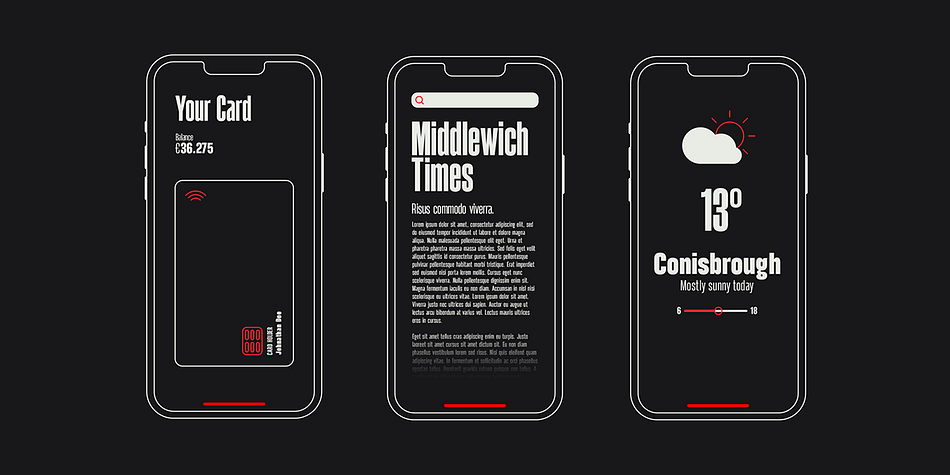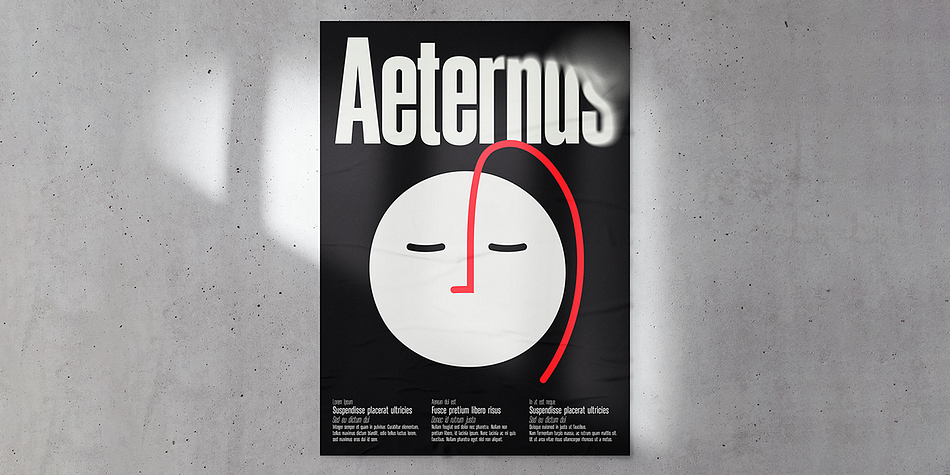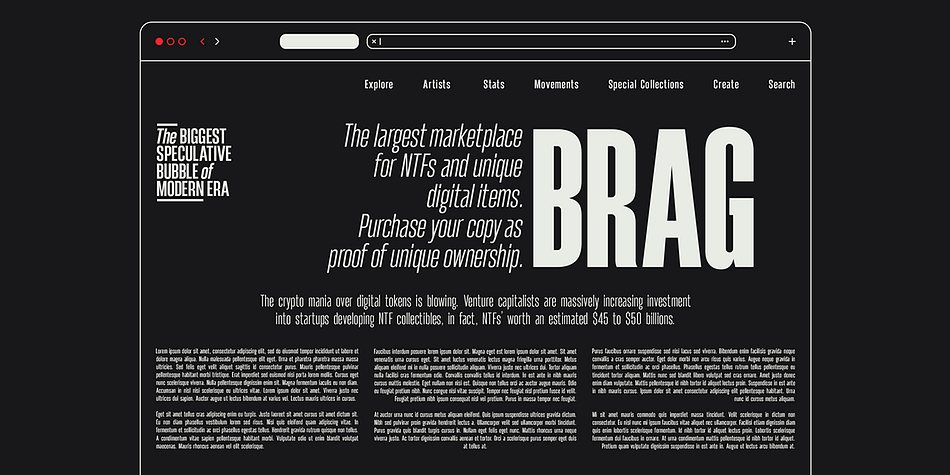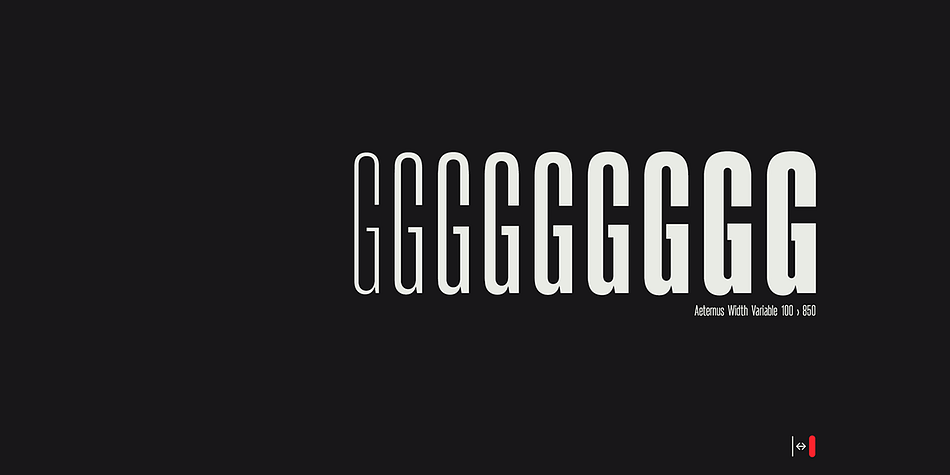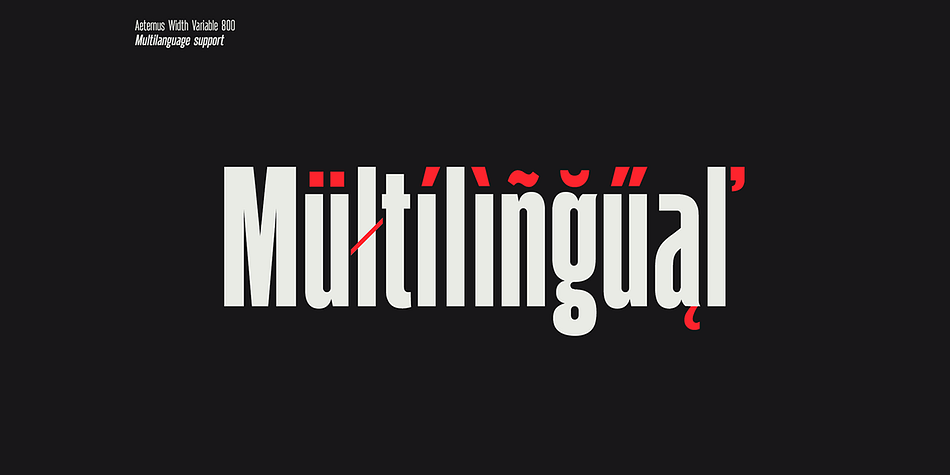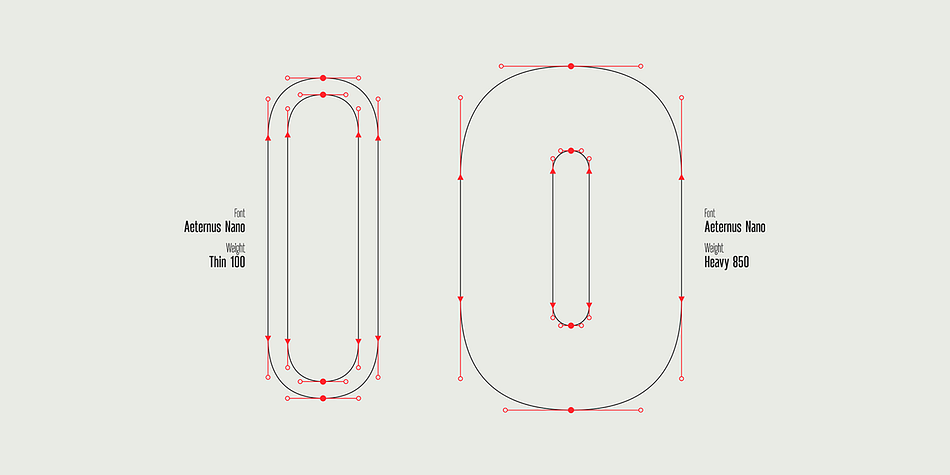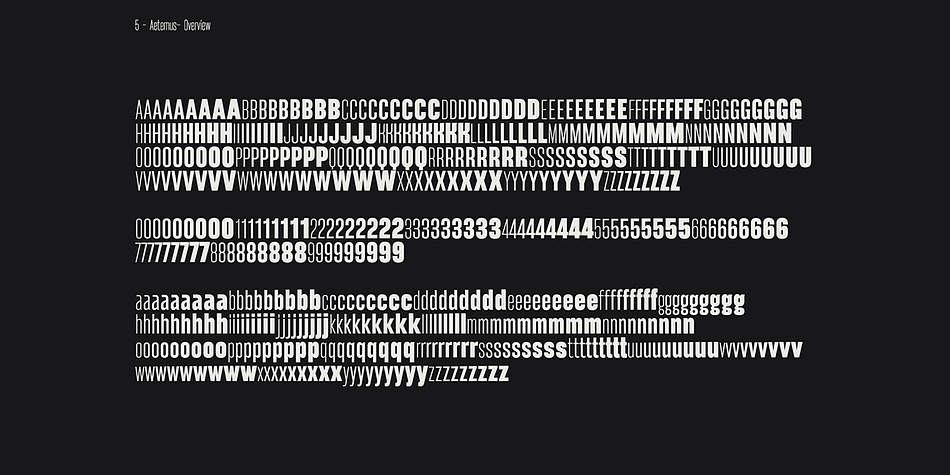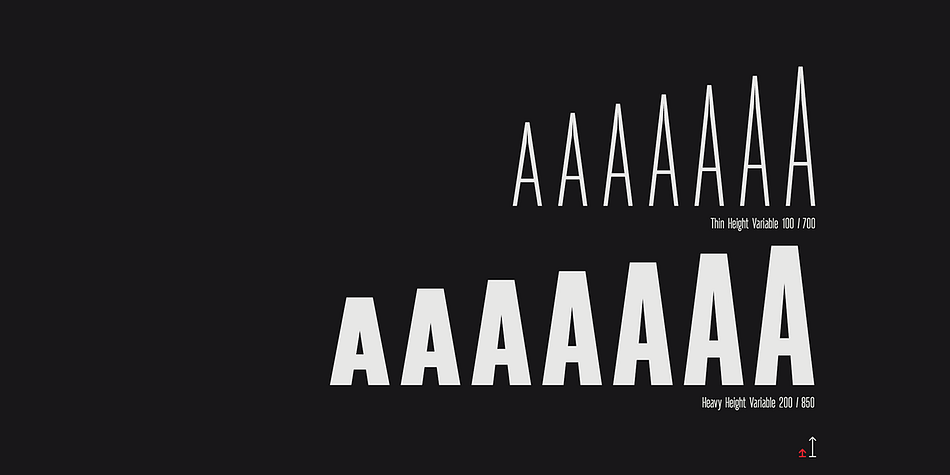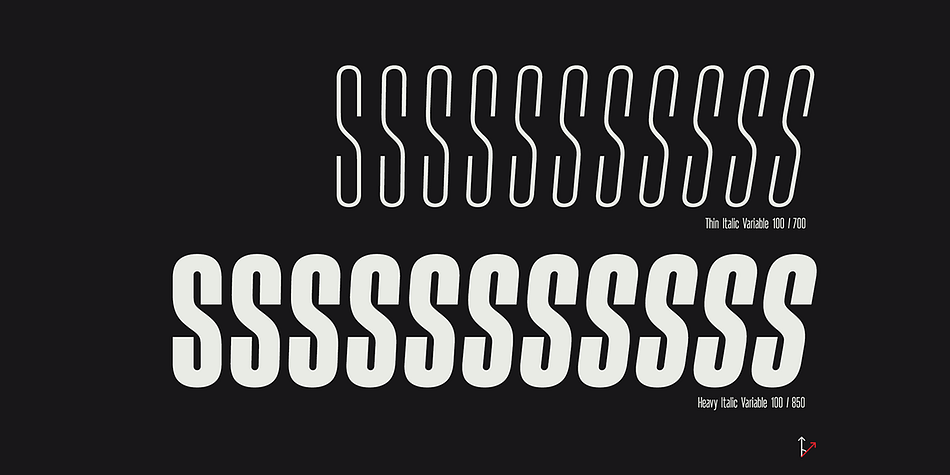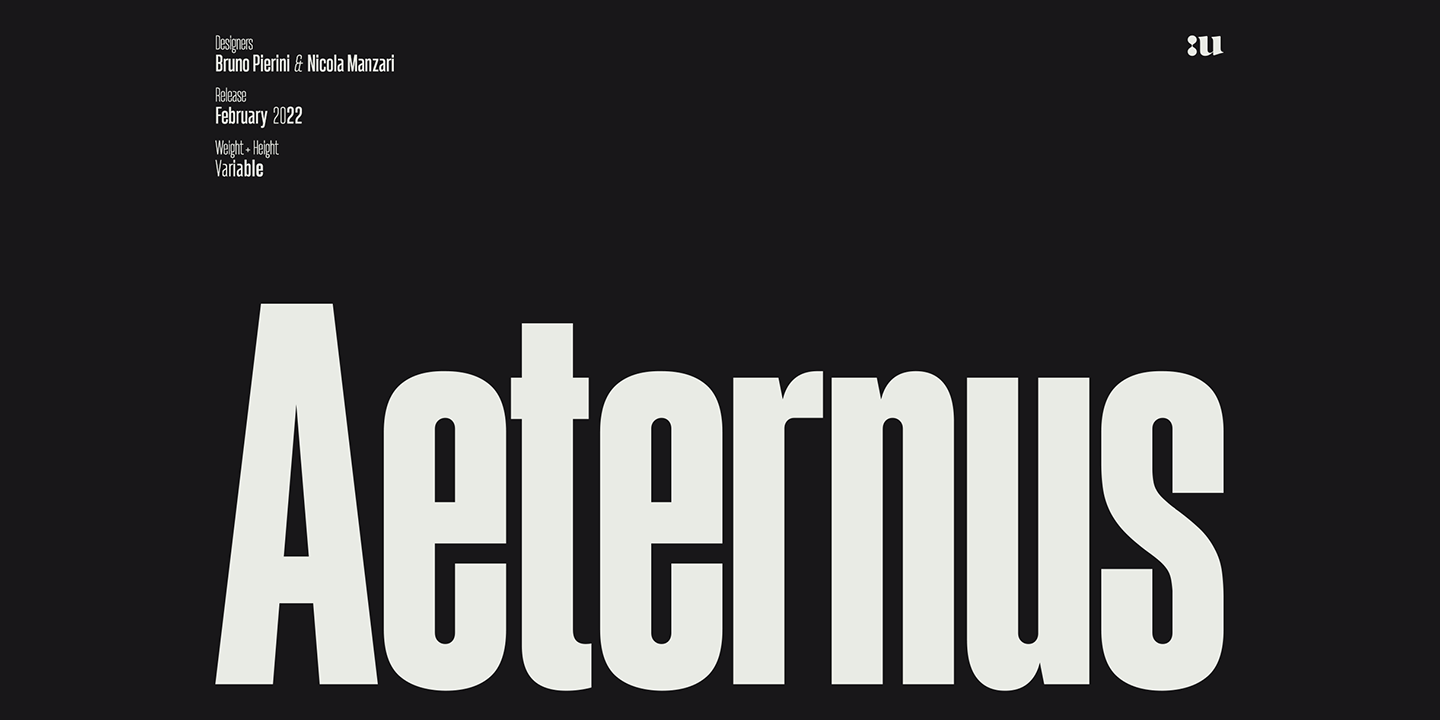
Aeternus Variable
Aeternus Variable is a sans serif font family. This typeface has four styles and was published by Unio Creative Solutions.
“Aeternus”, a new geometric Sans Serif Variable typeface, with matching italics. The combination of different heights and weights provides versatility in any text usage and opens a whole new world of possibilities.
Starting from two constant heights, Nano and Tall, this font family exploits the weight variation and delivers a full array of nine instances, including all weights ranging from Thin to Heavy. A distinct characteristic of this variable typeface is the capability to vary the height, simply maintaining constant the weights, Thin and Heavy.
Optimized for titling, contemporary branding, web design, UI/UX design, clothing, large print formats.
- Multi-language support (Central, Eastern, Western European languages)
- OpenType Features